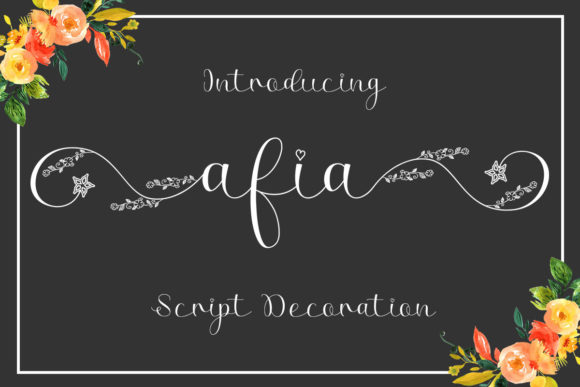
Afia Script: Where Elegance Meets Your Creative Vision
There’s a moment in every creative project where the right typeface can transform a good idea into something truly captivating. It’s the difference between a message that gets lost and one that lingers in the mind. For designers, entrepreneurs, and creators seeking that perfect blend of sophistication and expressiveness, discovering a font like Afia Script feels like finding a missing puzzle piece. This isn't just another script font; it's a carefully crafted tool designed to inject a distinct personality and a touch of magic into your work.
The Visual Personality of Afia Script
At its core, Afia Script is a premium font that embodies modern calligraphy. Its letterforms flow with a natural, elegant rhythm, featuring graceful swashes and connected strokes that mimic the fluidity of a skilled hand. The visual style strikes a beautiful balance—it’s neither overly formal nor too casual. This makes it a versatile creative font with a personality that can feel romantic, sophisticated, playful, or luxurious depending on its context and color pairing. The overall appeal lies in its ability to add a human, artisanal touch while maintaining a high level of professionalism and legibility, a common challenge with many handwritten fonts.
Where This Script Font Truly Shines
The true test of any typeface is its performance in real-world applications. Afia Script excels as a display font, making it ideal for projects where you need to make a strong visual impact. Consider its role in logo design, where it can craft a memorable wordmark for a boutique brand, a wedding stationery studio, or a premium cafe. In packaging design, it adds a layer of perceived quality and care, perfect for artisanal goods, beauty products, or gourmet foods. For editorial design, think of elegant magazine headlines, chapter titles in a book, or pull quotes that draw the reader’s eye.
Its strengths extend powerfully into the digital realm. For social media graphics, particularly on visual platforms like Instagram, Afia Script is a standout choice for quotes, announcements, and story overlays that need to stop the scroll. It’s a fantastic option for web design when used judiciously in hero sections, call-to-action buttons, or featured content headers, pairing beautifully with a clean sans serif font for body text. Entrepreneurs and small business owners will find it invaluable for creating cohesive brand identity materials, from business cards and letterheads to email newsletters and promotional posters.
Practical Guidance for Using Afia Script
Choosing the right font is a strategic decision, not just an aesthetic one. When evaluating if Afia Script is the right fit, start by defining your project’s core message and audience. Is the goal to convey warmth and approachability, or high-end elegance? This script font leans towards the latter, making it perfect for brands that want to communicate exclusivity, craftsmanship, or romantic appeal. Always test it within your actual design mockups. How does it look at the size you’ll use it? Does it maintain its character when scaled down for a business card?
A critical step is exploring font pairing. Afia Script works best when contrasted with simpler, more neutral typefaces. A classic pairing is with a geometric sans serif font like Montserrat or a traditional serif font like Garamond for body copy. This creates a clear visual hierarchy, ensuring your headlines sparkle while your longer text remains perfectly readable. Avoid pairing it with other ornate scripts or display fonts, as this can create visual clutter and harm readability.
One of the most practical features of Afia Script is its PUA encoding. This technical detail means that every glyph, swash, and alternate character is easily accessible in any design software, even applications that don’t have advanced OpenType support. This gives you immense creative control to customize letter connections and add flourishes, ensuring your typography feels unique and tailored. For commercial use, always verify the licensing. Afia Script is designed as a commercial font, so reviewing its license for your specific needs—whether for client work, merchandise, or digital products—is a straightforward but essential part of the professional design process.
In the crowded landscape of design assets, Afia Script offers a distinct combination of beauty and utility. It’s more than just a typeface; it’s a design partner that helps elevate projects from ordinary to extraordinary. By understanding its strengths and applying it thoughtfully, you can leverage this font to enhance readability, strengthen brand perception, and create a consistent, professional aesthetic that truly engages your audience. Whether you’re crafting a personal DIY project or building a brand’s visual foundation, it provides the elegance and versatility needed to turn creative ideas into polished, impactful art.